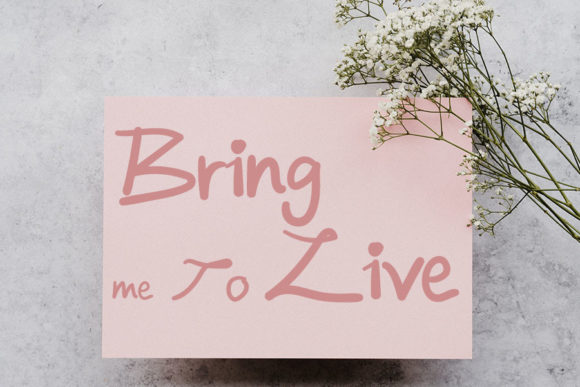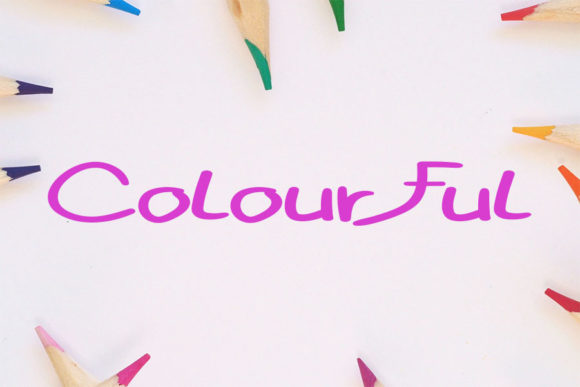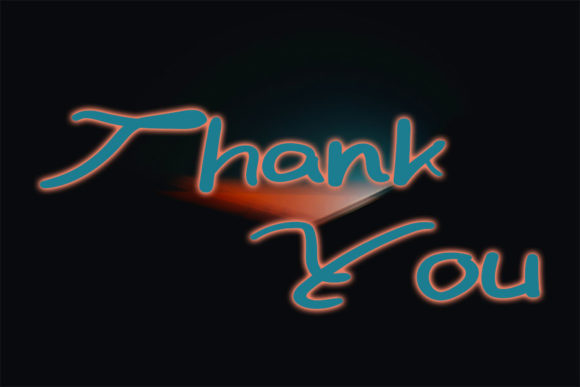
Good Father Font
About Good Father Font
Good Father is a simple and casual handwritten font. This font’s versatility will appeal to a wide range of crafty ideas, from letterheads and titles, to stationery.